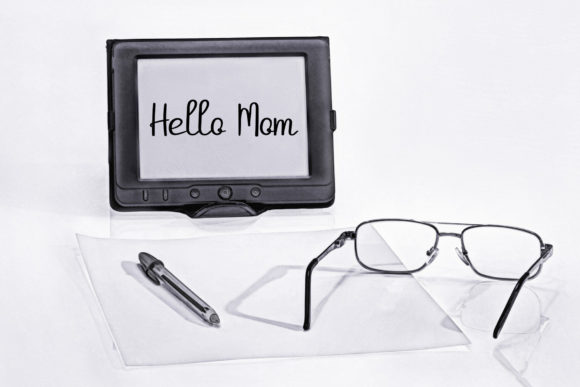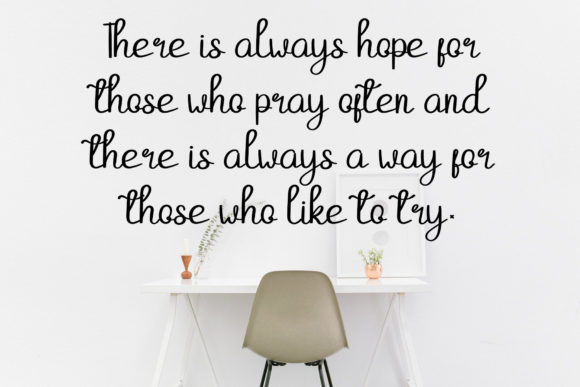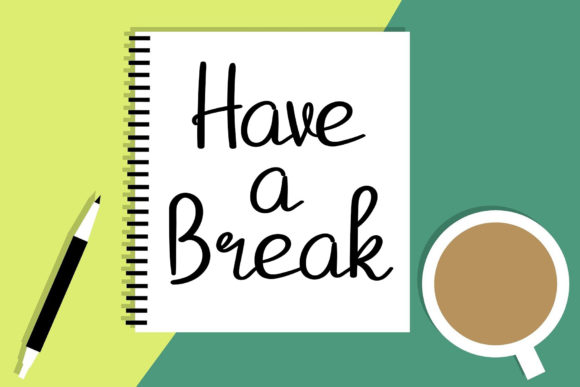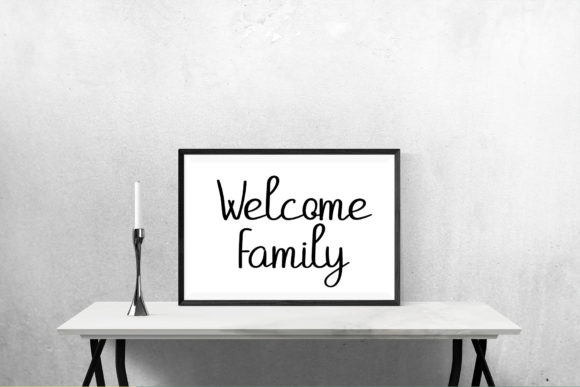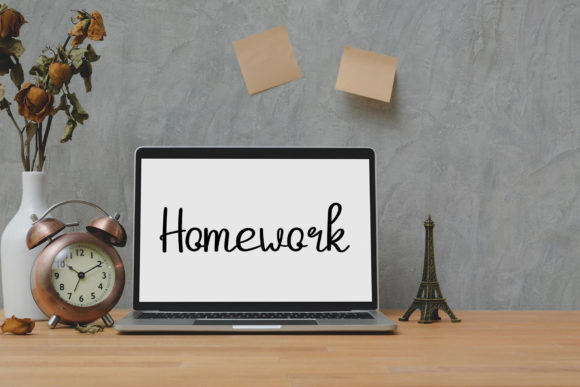
Introducing Charlotte Font: The Epitome of Elegance and Sophistication
In the world of typography, few fonts manage to convey the essence of luxury and refinement as effortlessly as Charlotte Font. This chic, elegant script font has been making waves in the design community, and for good reason. With its stylish alternates and ligatures, Charlotte Font is the perfect match for any project that demands a touch of sophistication.
The Design Philosophy Behind Charlotte Font
Charlotte Font is more than just a collection of letters; it’s an expression of style and refinement. Its design is rooted in the principles of classic script typography, yet it boasts a modern flair that sets it apart from more traditional fonts. Each character in Charlotte Font is carefully crafted to exude an air of elegance, making it an ideal choice for designers and crafters looking to add a touch of luxury to their work.
Key Features of Charlotte Font
- Stylish Alternates: One of the standout features of Charlotte Font is its set of stylish alternates. These variations allow designers to add a unique twist to their text, making it more visually appealing and engaging. Whether you’re working on a branding project, a wedding invitation, or a high-end product catalog, these alternates provide the flexibility to match your design with your client’s or project’s specific needs.
- Ligatures: Ligatures in Charlotte Font add another layer of sophistication to your typography. These special characters combine two or more letters into a single glyph, creating a seamless and fluid look that enhances the overall elegance of your text. Ligatures are particularly useful in titles, headings, and short paragraphs where a premium look is desired.
- Elegant Lines: The lines in Charlotte Font are meticulously designed to convey a sense of fluidity and grace. Each stroke is smooth and deliberate, contributing to the font’s overall luxurious feel. This makes Charlotte Font an excellent choice for projects that require a high level of refinement.
Applications of Charlotte Font
The versatility of Charlotte Font makes it suitable for a wide range of applications. Here are a few ideas to get you started:
- Branding and Logotypes: For businesses aiming to project an image of luxury and sophistication, Charlotte Font can be a valuable asset. Its elegant appearance makes it perfect for creating high-end logos, business cards, and letterheads.
- Wedding and Event Stationery: The font’s refined look makes it a popular choice for wedding invitations, save-the-date cards, and other event stationery. It sets the tone for a classy and memorable occasion.
- Packaging and Product Design: For products that embody luxury and quality, Charlotte Font can be used on packaging to enhance the brand’s premium image.
- Digital and Print Media: Whether you’re designing a website, a magazine, or an advertisement, Charlotte Font can add a touch of elegance to your content, making it more appealing to your audience.
Tips for Using Charlotte Font Effectively
To make the most of Charlotte Font, consider the following tips:
- Pair it with Simplicity: Let Charlotte Font be the focal point of your design. Pairing it with simpler fonts or clean backgrounds can help highlight its elegant features.
- Experiment with Sizes: Playing with different sizes can add depth and interest to your design. Use larger sizes for headings and smaller sizes for body text to create a visually appealing hierarchy.
- Utilize Alternates and Ligatures: Don’t be afraid to experiment with the font’s alternates and ligatures. These features can add a unique touch to your text and make your design stand out.
Charlotte Font is a powerful tool for designers and crafters looking to infuse their projects with a sense of elegance and sophistication. Its stylish alternates, ligatures, and elegant lines make it the perfect choice for a variety of applications, from branding and packaging to wedding stationery and digital media. By incorporating Charlotte Font into your design repertoire, you’ll be well-equipped to create visually stunning and memorable projects that leave a lasting impression.